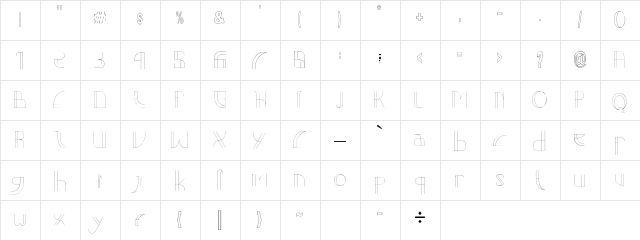
Relline Regular
Design Context for Relline Typeface
Relline is a composed and adaptable typeface that performs quietly and consistently across a wide range of design contexts.